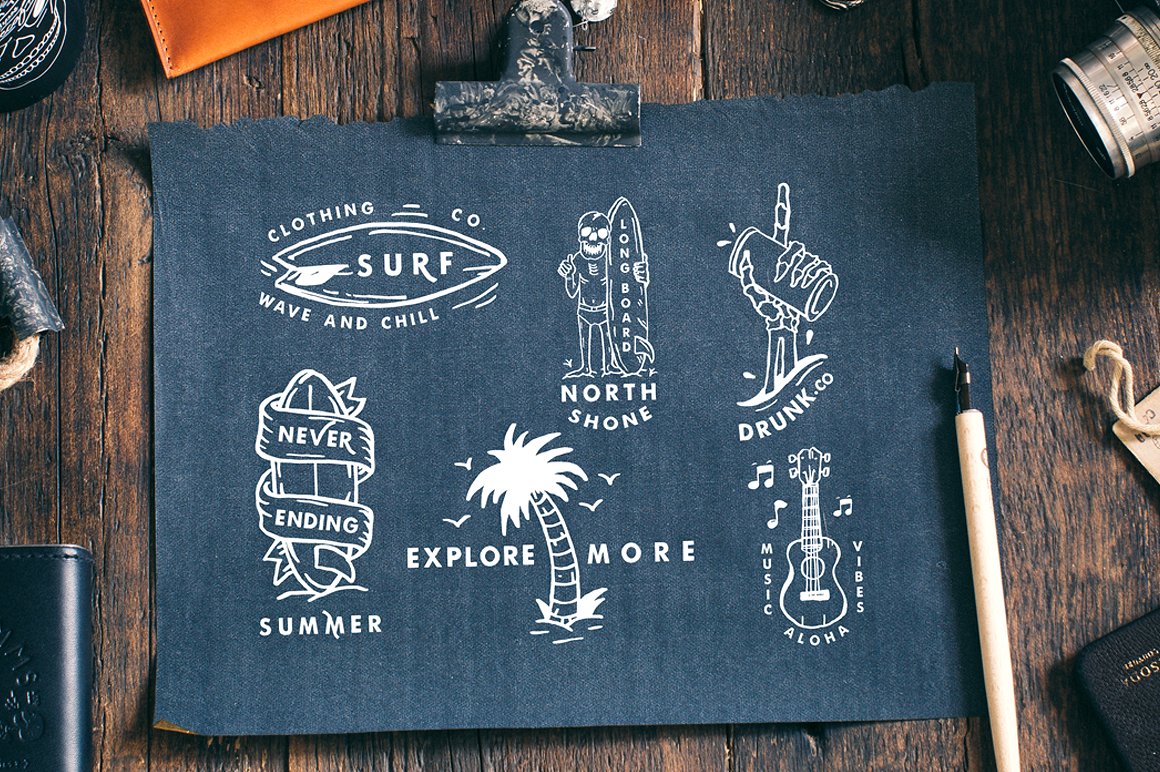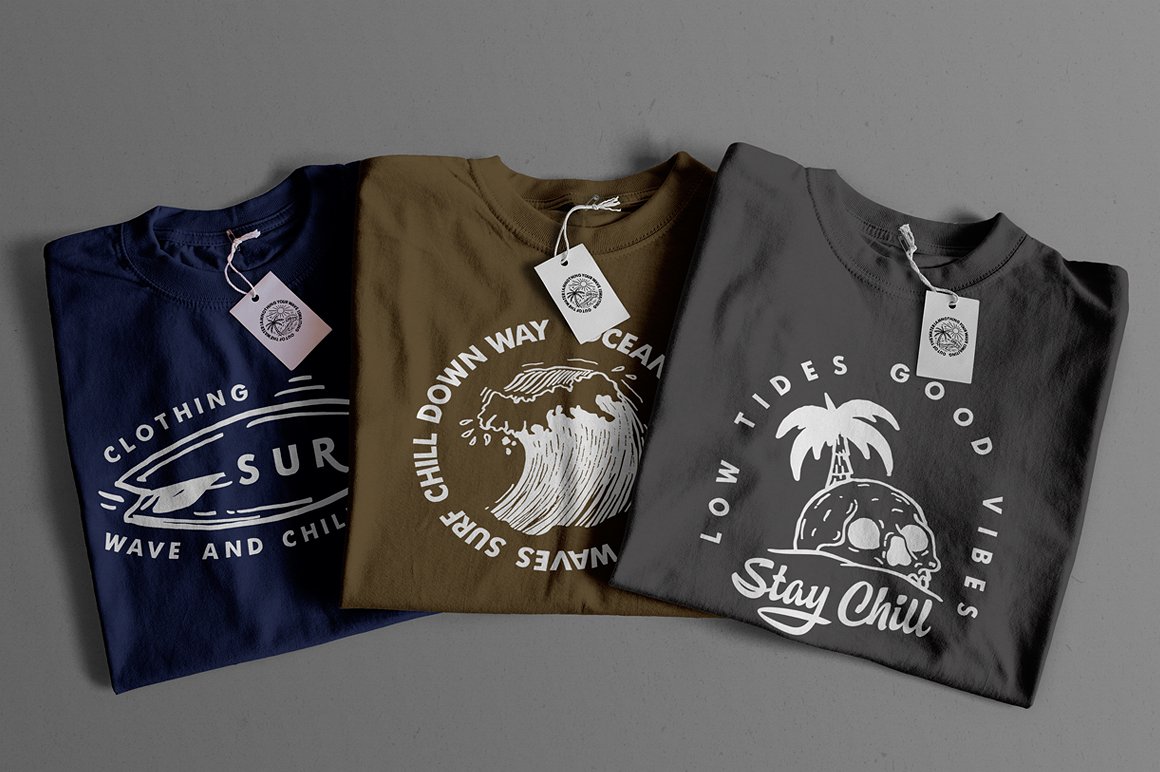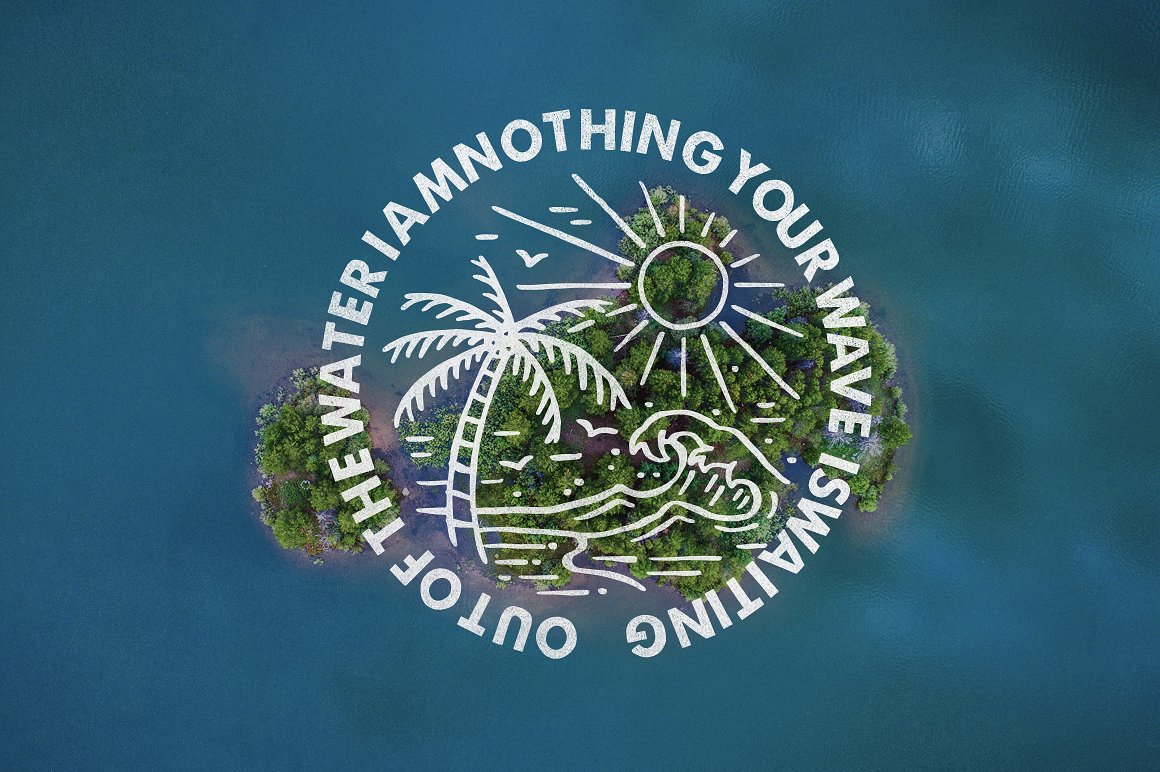
The Birth of a New Design Icon: Carbon Font
As designers, we’ve all been there – staring at a blank canvas, searching for the perfect font to elevate our project. It’s that moment when the perfect font can make or break the entire design. For us, that moment came when we discovered the Carbon Font – a clean, simple display font that’s specifically designed to be part of logos and badges.
The Carbon Font is a versatile and modern font that’s perfect for adding a touch of sophistication to your designs. With its clean lines and simple design, it’s no wonder that designers are flocking to it for their next big project. Whether you’re a seasoned pro or just starting out, the Carbon Font is a valuable addition to any designer’s toolkit.
Key Features of Carbon Font
- Unique Characteristics: Carbon Font features a unique blend of modern and industrial design elements, with a focus on clean lines, geometric shapes, and a metallic finish.
- Font Weight: Carbon Font includes 6 font weights, ranging from Light to Bold, allowing designers to achieve a wide range of visual effects and moods.
Carbon Font Review
Overall, I’m impressed with the Carbon Font. It’s a solid choice for digital design projects, and I’ll outline what works well and where it falls short.
- Carbon Font has a modern and sleek aesthetic that fits well with contemporary design trends.
- The font family includes multiple weights, from light to bold, which provides flexibility in typography.
- The font’s high x-height makes it easy to read, especially in body text.
- Carbon Font supports a wide range of languages, making it suitable for international projects.
- The font may not be suitable for projects requiring a classic or serif look, as it’s a sans-serif font.
- The font’s thin weights can be difficult to read in small text sizes.
- There may be some compatibility issues with older browsers or operating systems.
Overall, I’d give Carbon Font a solid 4 out of 5 stars. It’s a great choice for modern design projects, but it may not be the best fit for every project. With some careful consideration of its limitations, it can be a valuable addition to your design toolkit.
Carbon Font is commonly used in:
- Brand identities and logos
- Website and app design